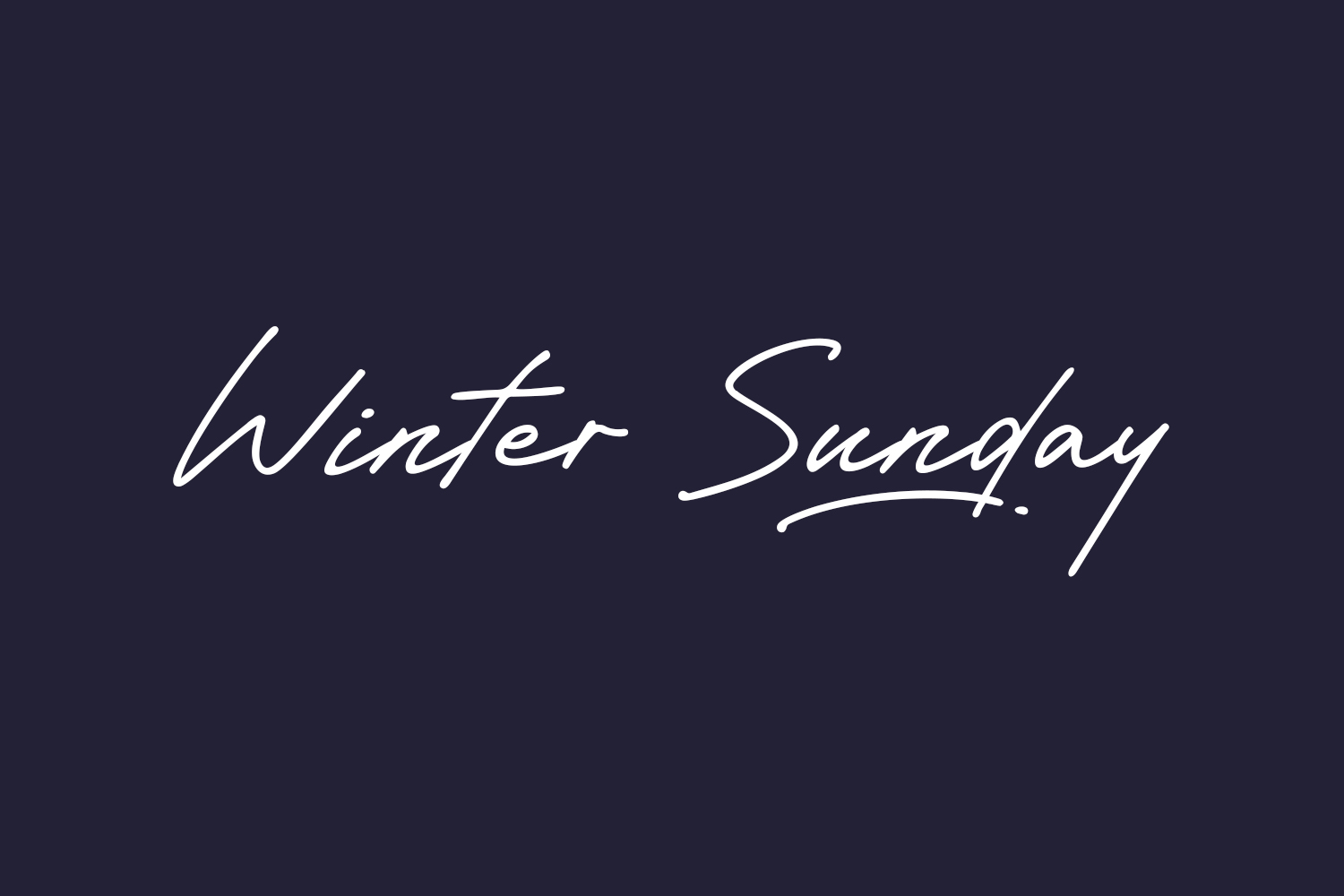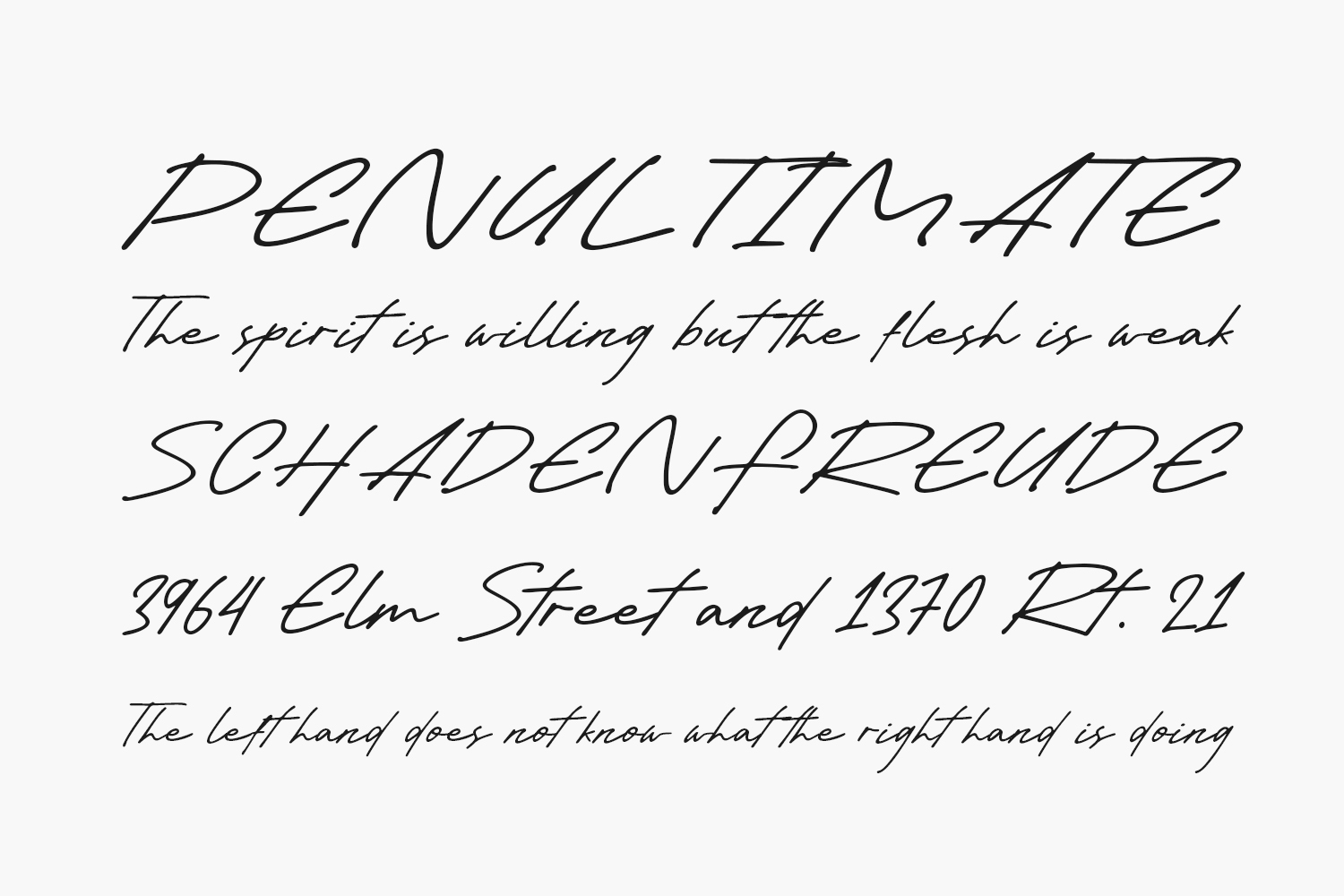
Winter Sunday Free Font embodies a sleek, stylish, contemporary, and refined script font, making it an excellent choice for a variety of design applications such as posters, logos, magazines, book covers, banners, and beyond. Acquire this exceptional font to craft beautiful designs effortlessly. Its versatility allows seamless integration into an extensive array of projects, ensuring they shine and grab attention. Incorporate this font into your creative endeavors and witness how it elevates and sets them apart. Winter Sunday Free Font is free for personal use only. Please purchase the full version for commercial use.